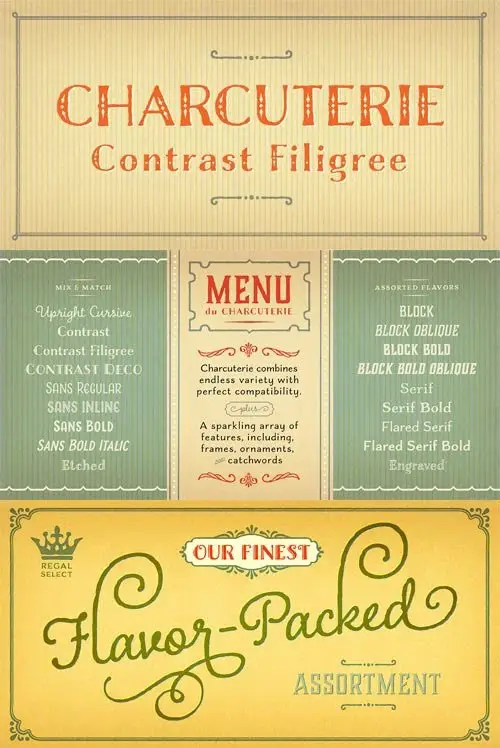
A large and rare undertaking, Charcuterie is a family of ten distinct yet related typefaces, many of which have their own font families, and three decorative/ornamental typefaces. While most of the Charcuterie typefaces are outfitted with a standard character set, Charcuterie Engraved features 135 swash alternates and Charcuterie Cursive boasts 275. Charcuterie Frames offers a broad and endless approach to creating frames of any width, height and style. Featuring 60 corner elements and 20 top, bottom and side pieces along with a detailed User’s Guide in the ‘Gallery’ on how to construct the frames. Charcuterie Catchwords features nine different styles for a total of 82 glyphs. Charcuterie Ornaments is very practical and features 100 glyphs a vast array of arrows, brackets, rules, icons, ribbons and more. This ambitious, yet accessible, set offers a virtually endless series of combinations, allowing each designer to form a tasty platter of ingredients, one that is uniquely theirs, for each project. Used solo or blended with other fonts from this large family, elements of Charcuterie are well suited for headlines, titling, logos, display, packaging, signage, or advertising. Dig deep into each typeface to find a rich set of fonts (the number depending on the typeface), revealing variations upon variations. The word charcuterie means the preparation of meats. Today, it often refers to a wide and varied selection of meats served together, listed as a single, beautiful, and complex menu item. Charcuterie celebrates the personally crafted – the sense of the human touch giving it a slightly rough edge that only adds to its charm. The ‘roughness’ derives from a slight stressing and small irregularities in some fonts. This bit of unevenness doesn't dominate the look – it’s simply the personality and humanity of the type designer cooked into the final piece. Charcuterie is an homage to the inventiveness, passion, and care of peasants who proudly handed down recipes through generations. Their humble fare is used by bistro chefs to create masterpieces by ever so slightly transforming the simple into the sumptuous. Similarly, with Charcuterie the designer can employ the handcrafted look of the many letters within these font families to create a project that is jaunty, quirky, and juicy or one that is a gloriously rich and varied feast for the eyes.